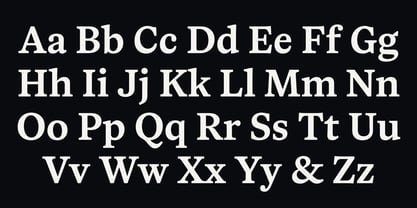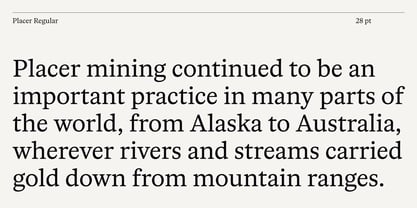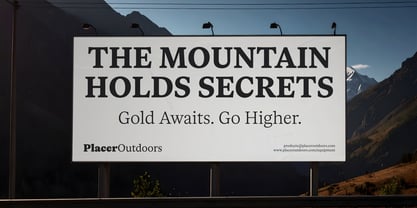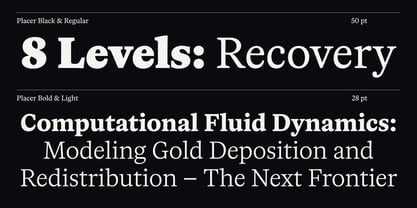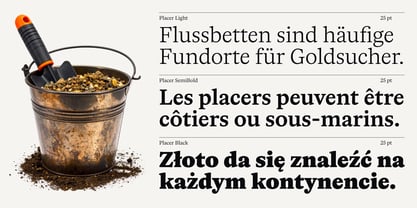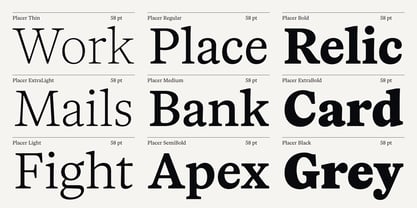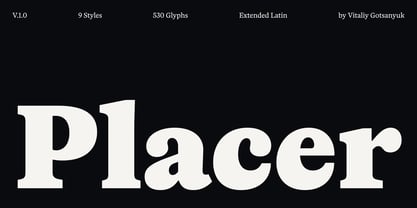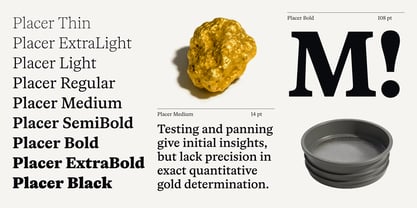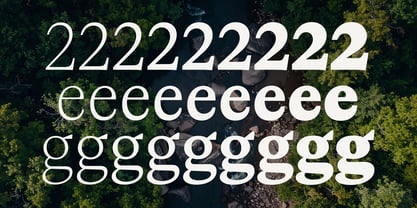
Placer
by Vitaliy Gotsanyuk
Placer is a modern serif typeface that combines the silhouette of the Janson and Caslon heritage with new solutions. As a result, the typeface maintains a perfect balance between tradition and contemporary demand, remaining versatile for both body text and headlines.
Features:
– Total glyph set: 530 glyphs;
– Support 200+ languages;
– Latin Extended;
– 9 styles.
OpenType features:
– Uppercase, lowercase;
– Proportional, oldstyle, tabular numerals, superiors, inferiors, fractions;
– Ordinals;
– Punctuations and symbols;
– Case-sensitive forms.
– Ligatures.
Designers: Vitalii Hotsaniuk
Foundry: Vitaliy Gotsanyuk